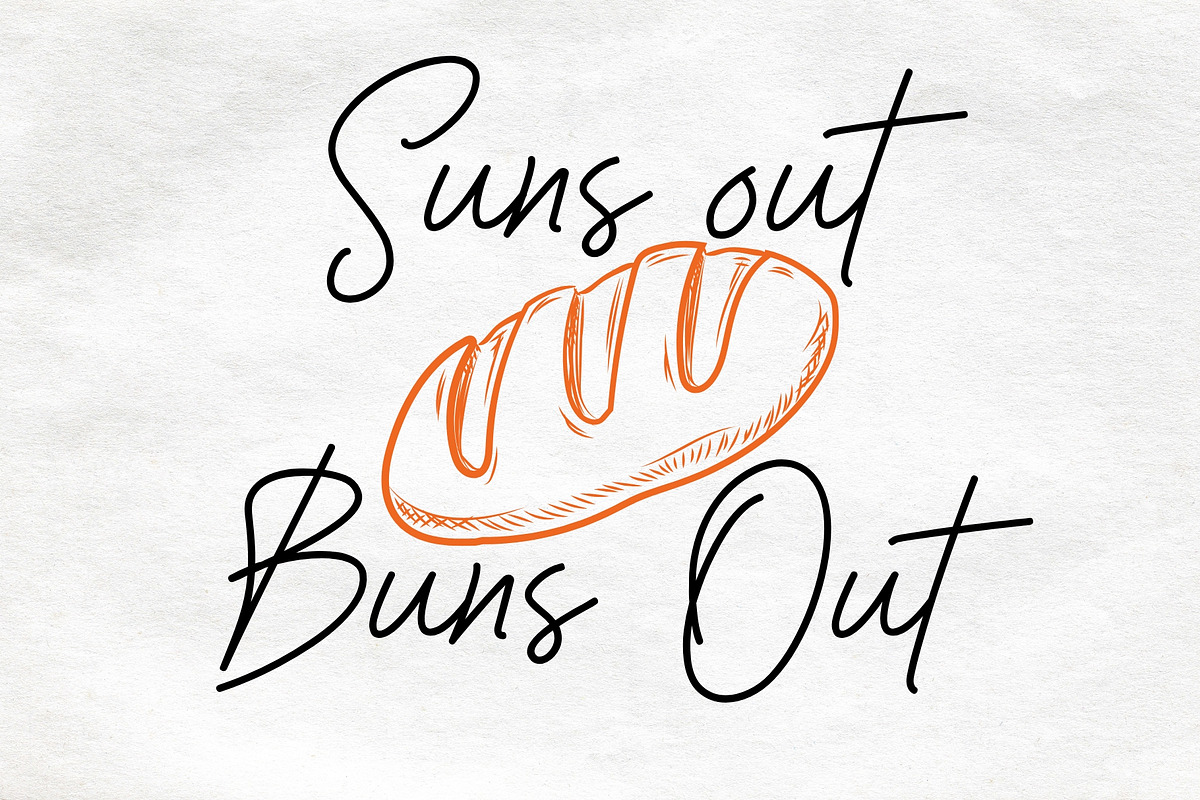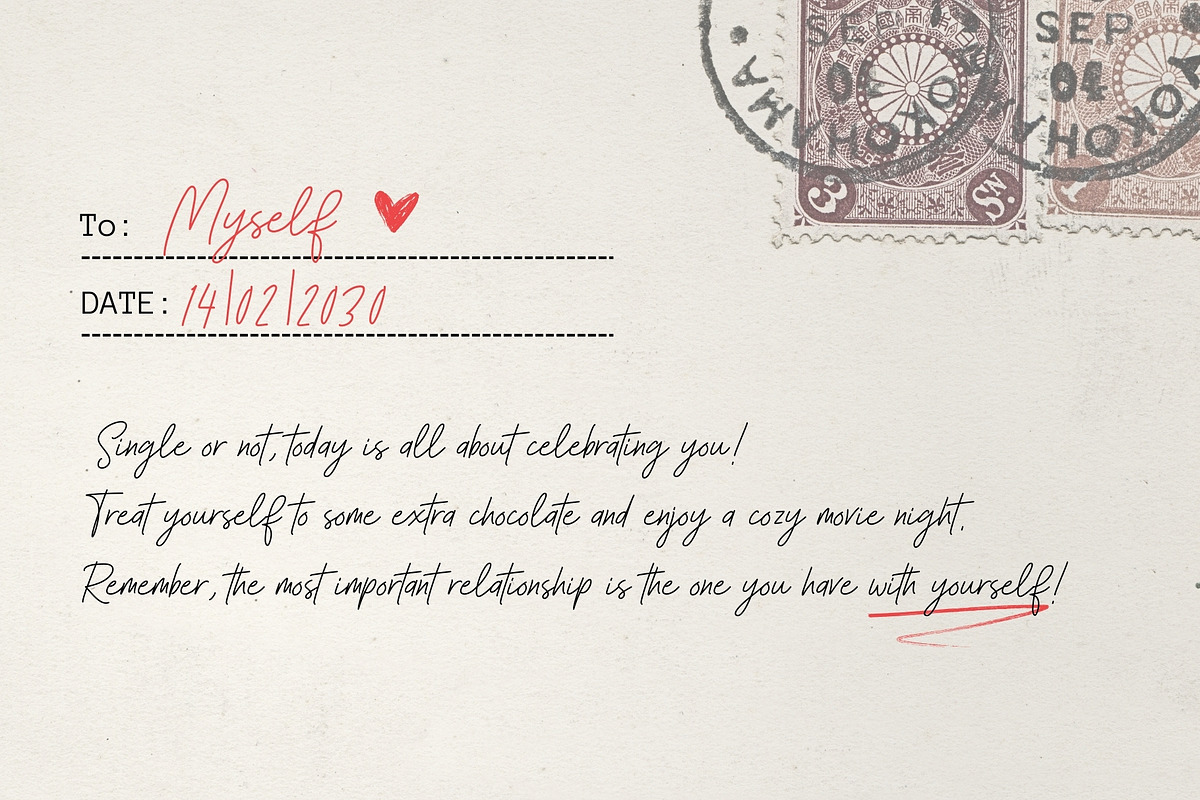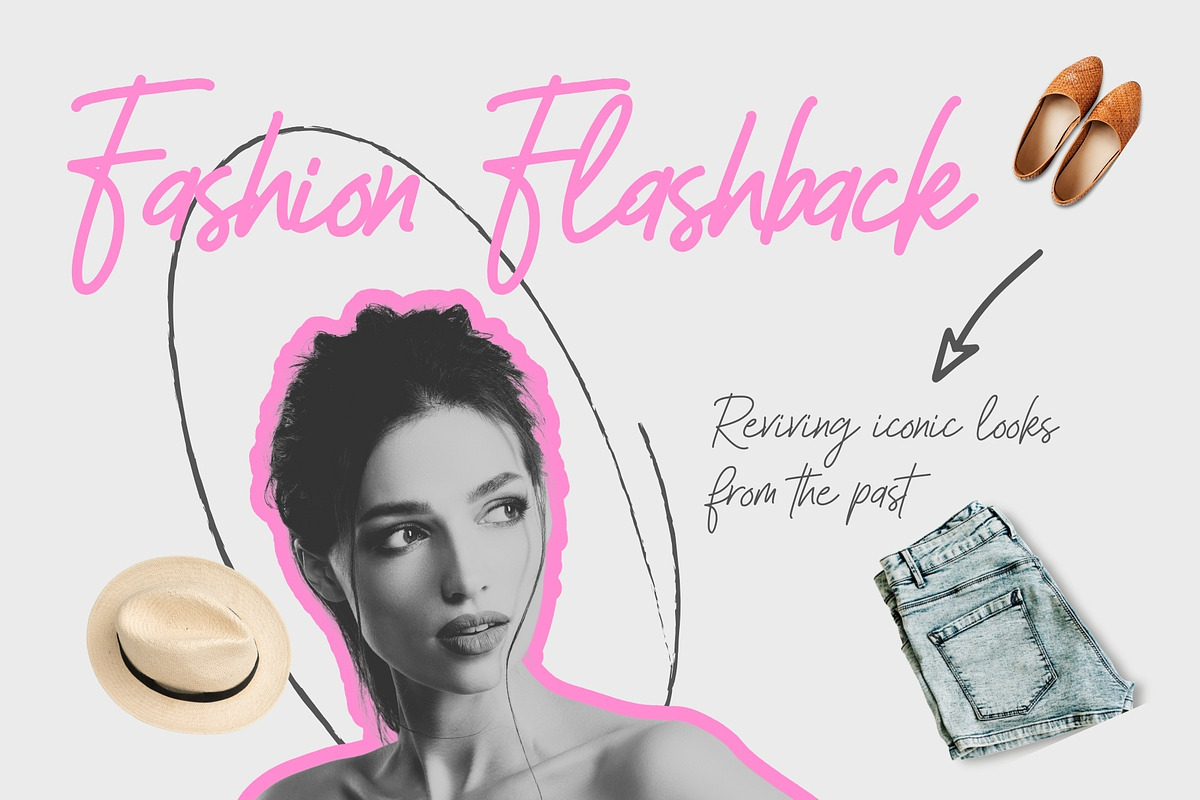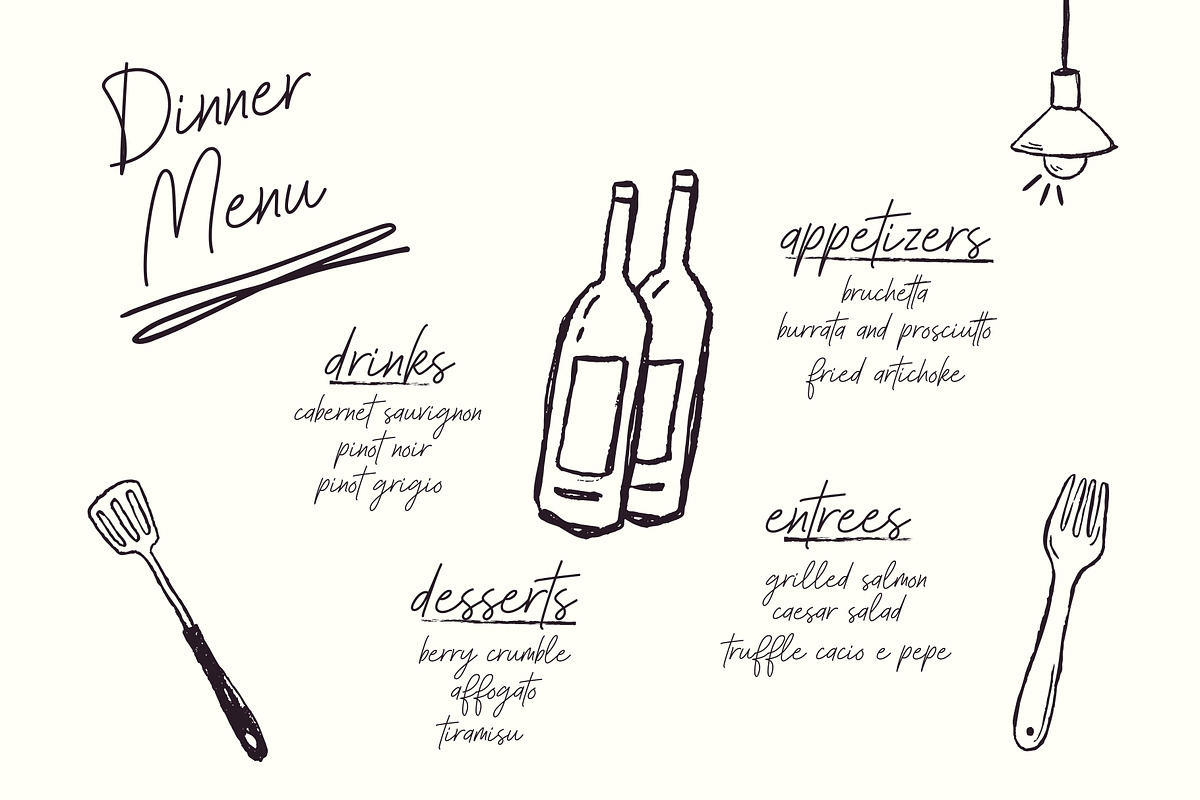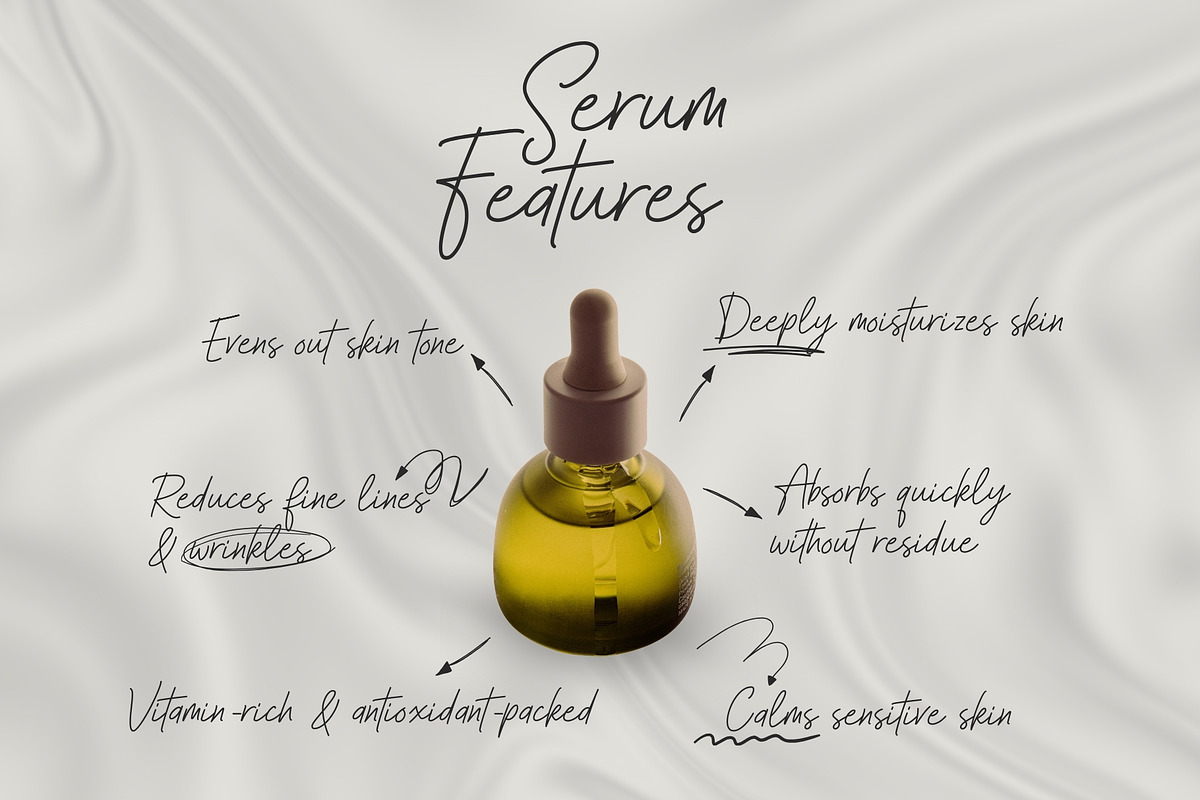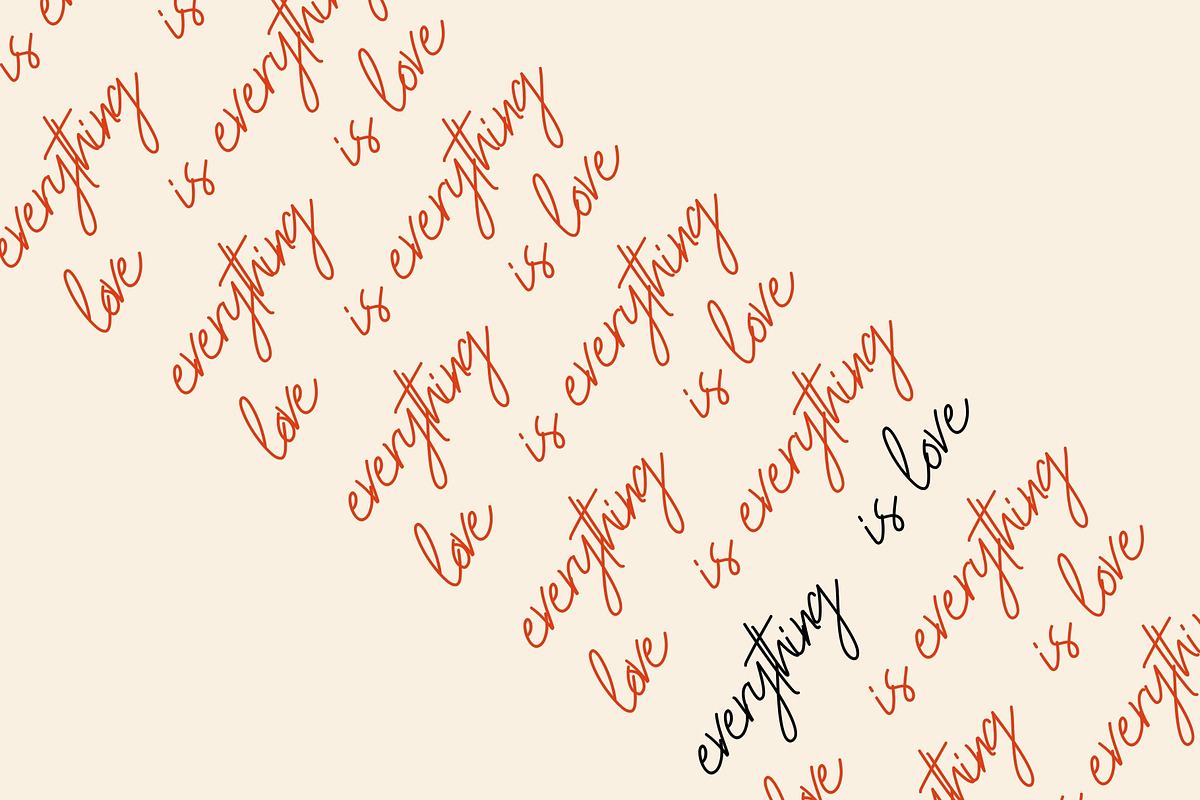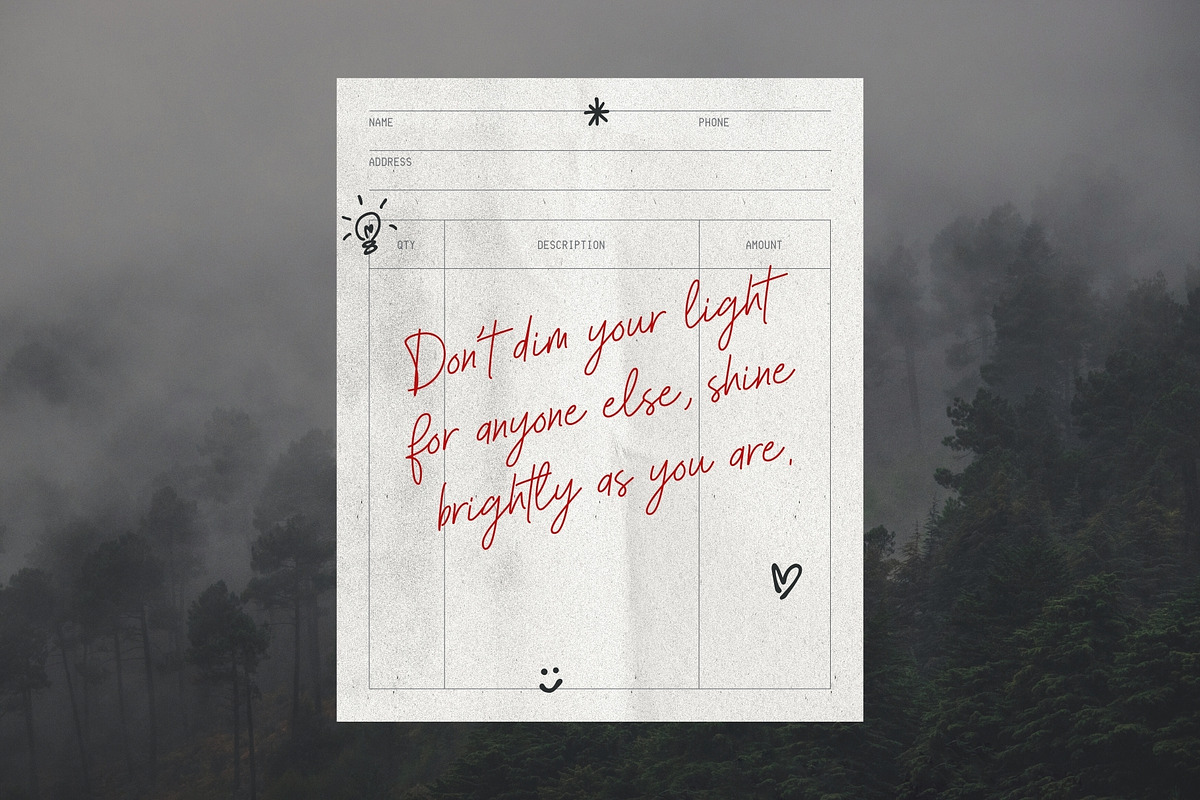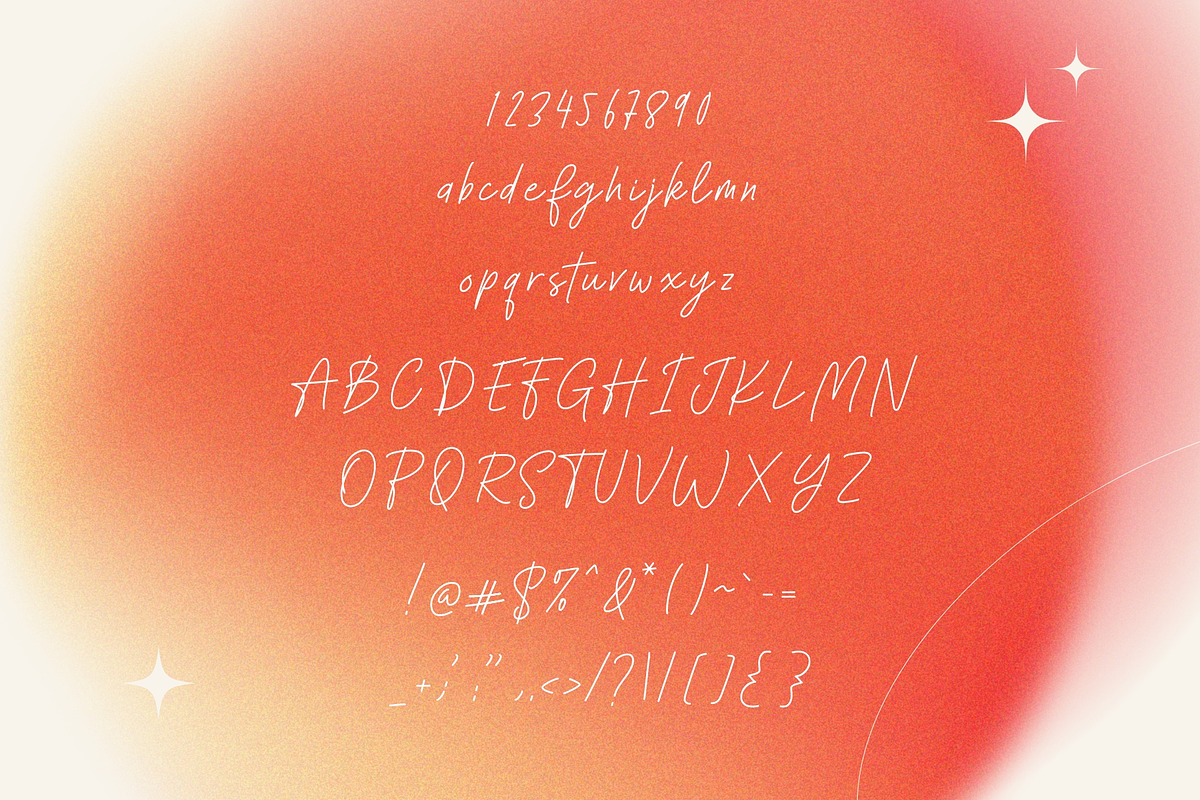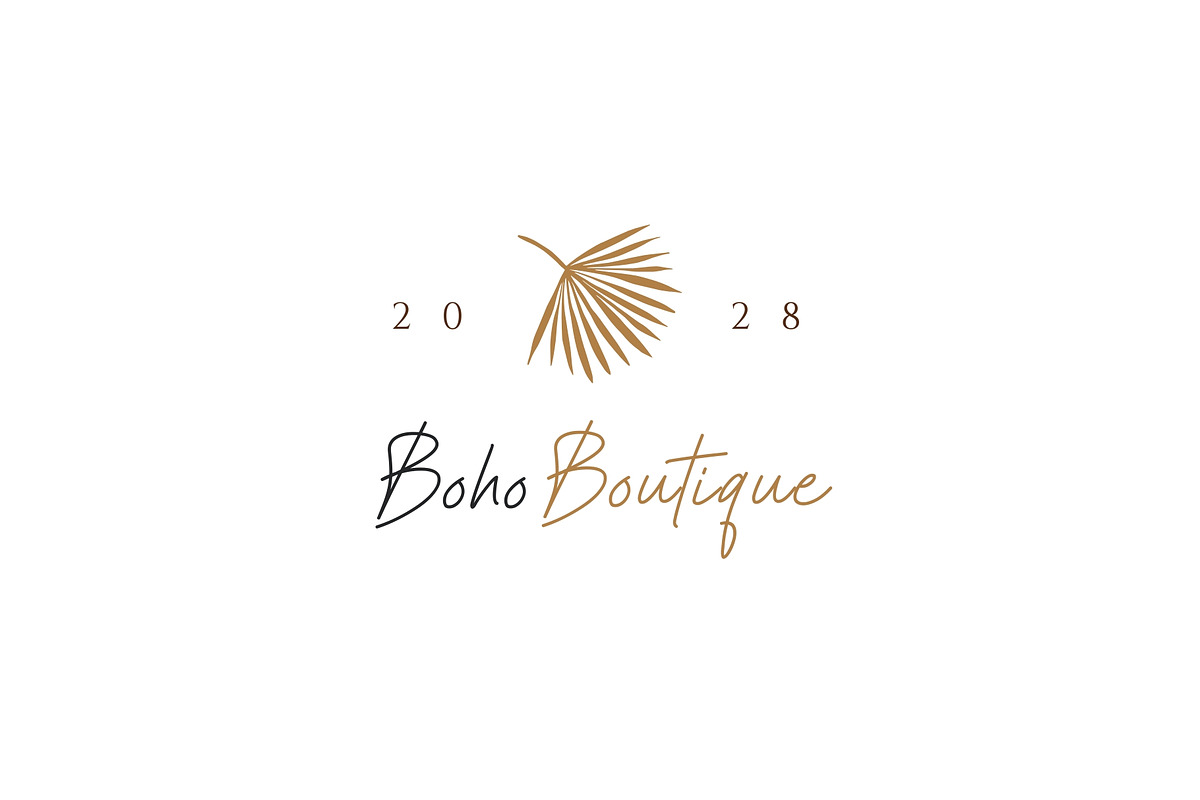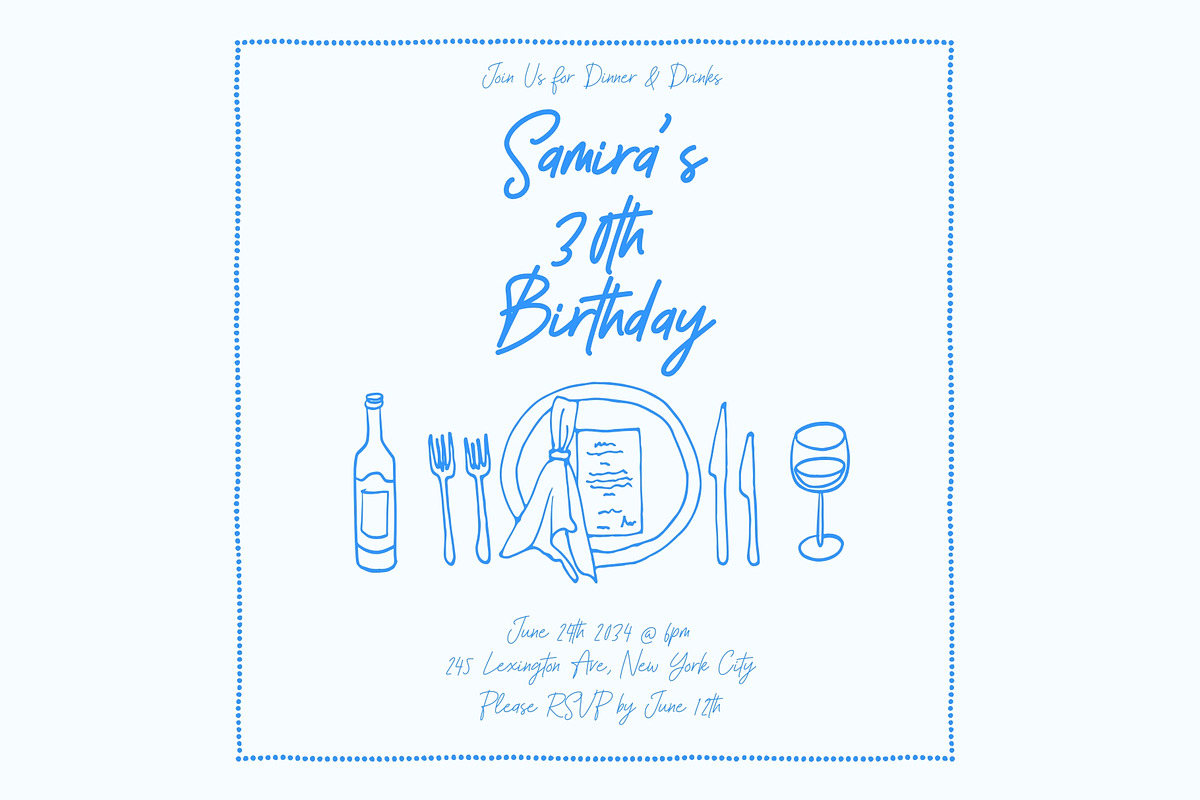
Amber Flow - Handwritten Script Type
Introducing Amber Flow, a breathtaking handwritten script typeface that exudes sophistication, charm, and effortless beauty. Designed to captivate, this sexy, sleek, and gorgeous typeface flows like liquid gold, delivering an irresistible balance of elegance and modern allure.
With its graceful curves and fluid strokes, Amber Flow is perfect for:
Luxury branding & fashion editorials
Elegant wedding invitations & stationery
Signature logos & personal branding
Classy packaging & high-end products
Crafted with meticulous detail, Amber Flow offers flawless letterforms, delicate ligatures, and stunning alternates to create truly unique designs. Whether you're designing for romance, luxury, or artistry, this typeface will elevate your typography with pure sophistication.
Let your words flow with elegance—Amber Flow is here to make every project unforgettable.